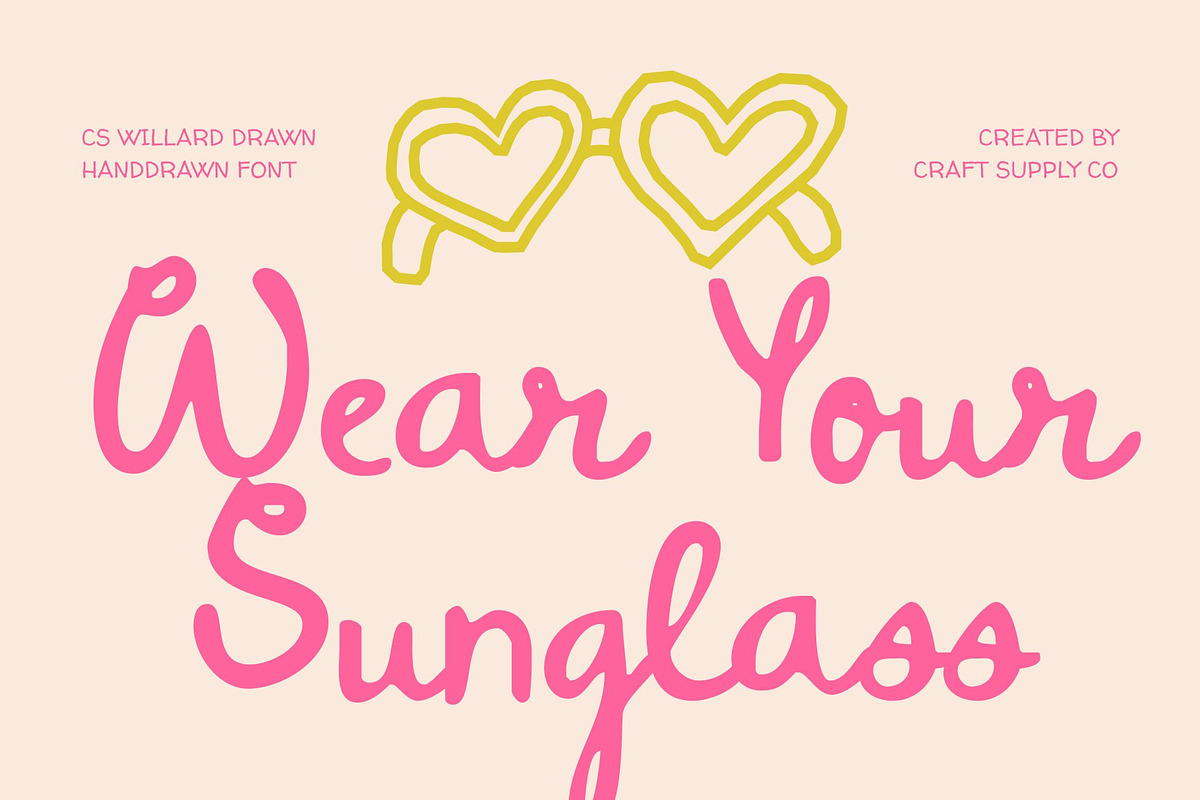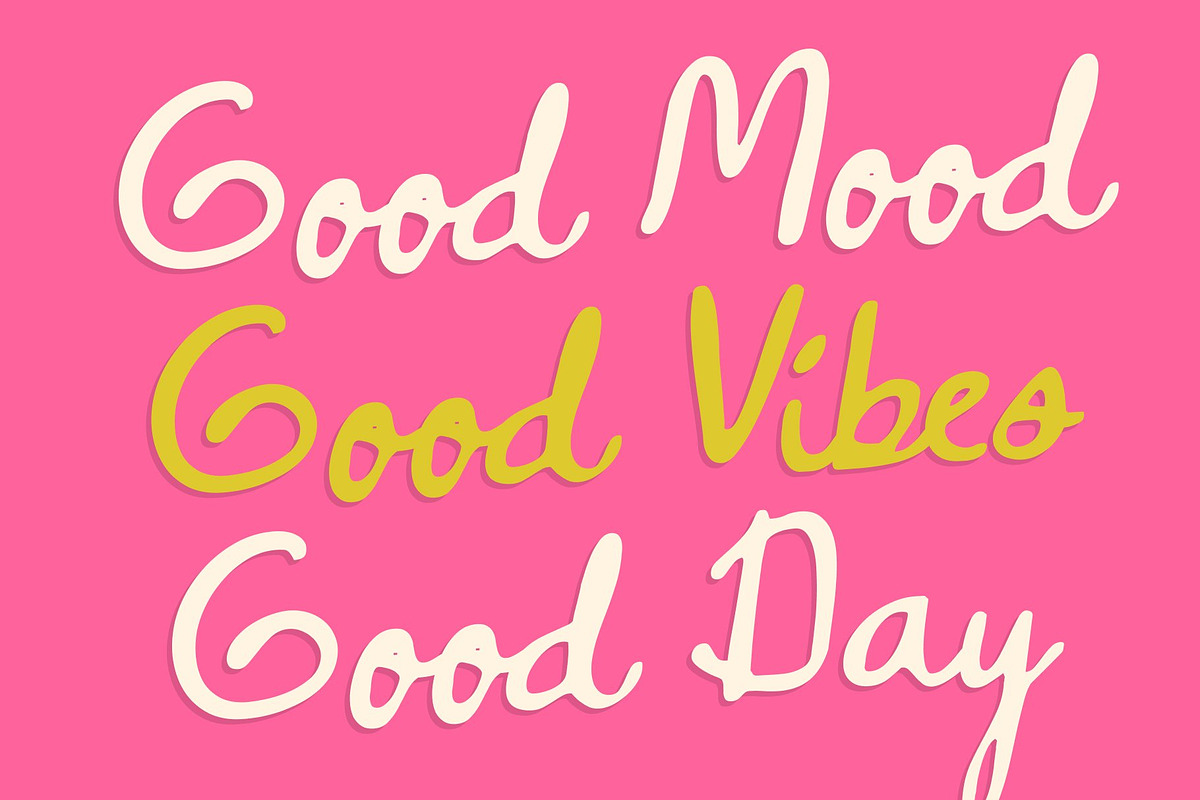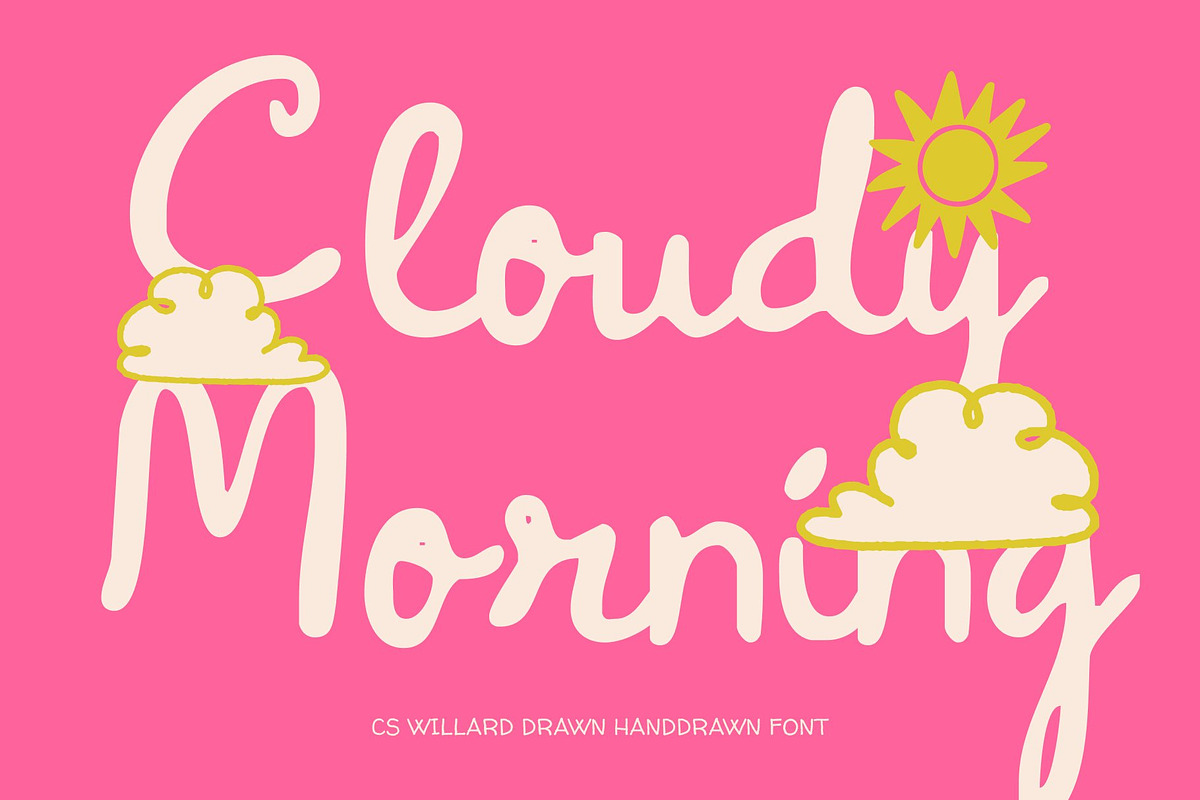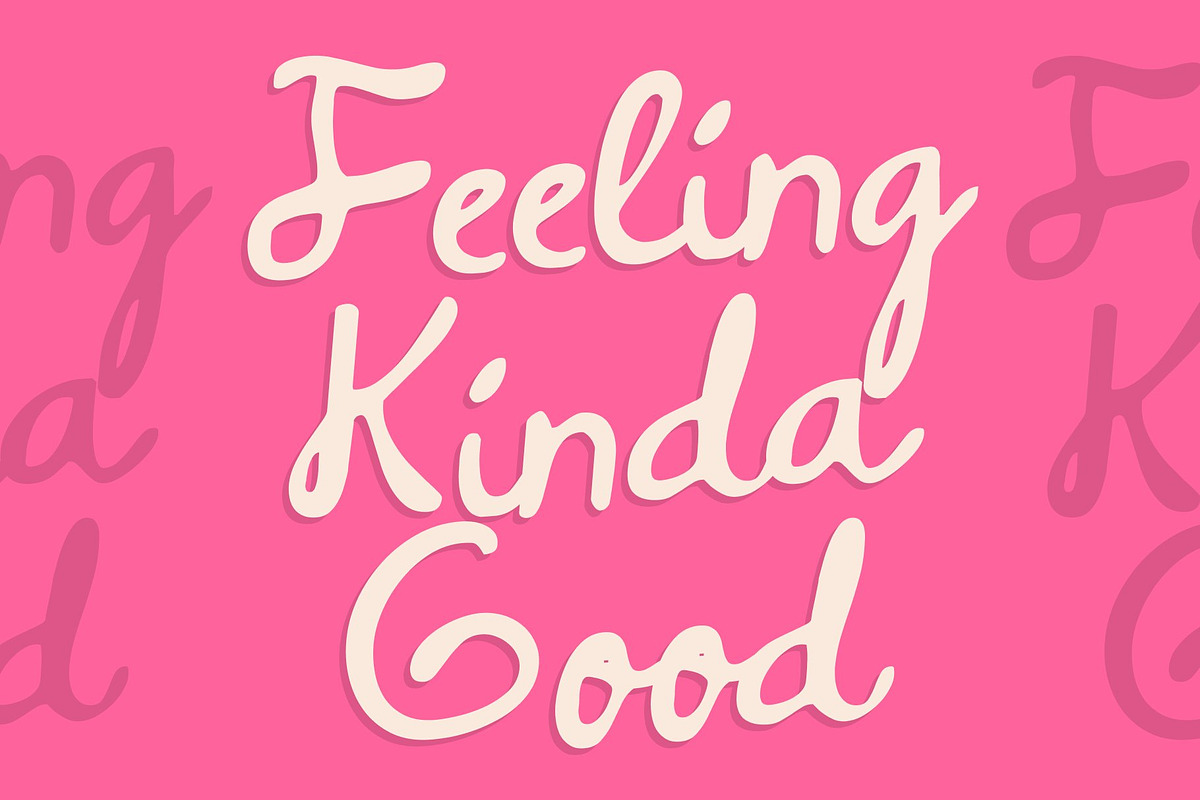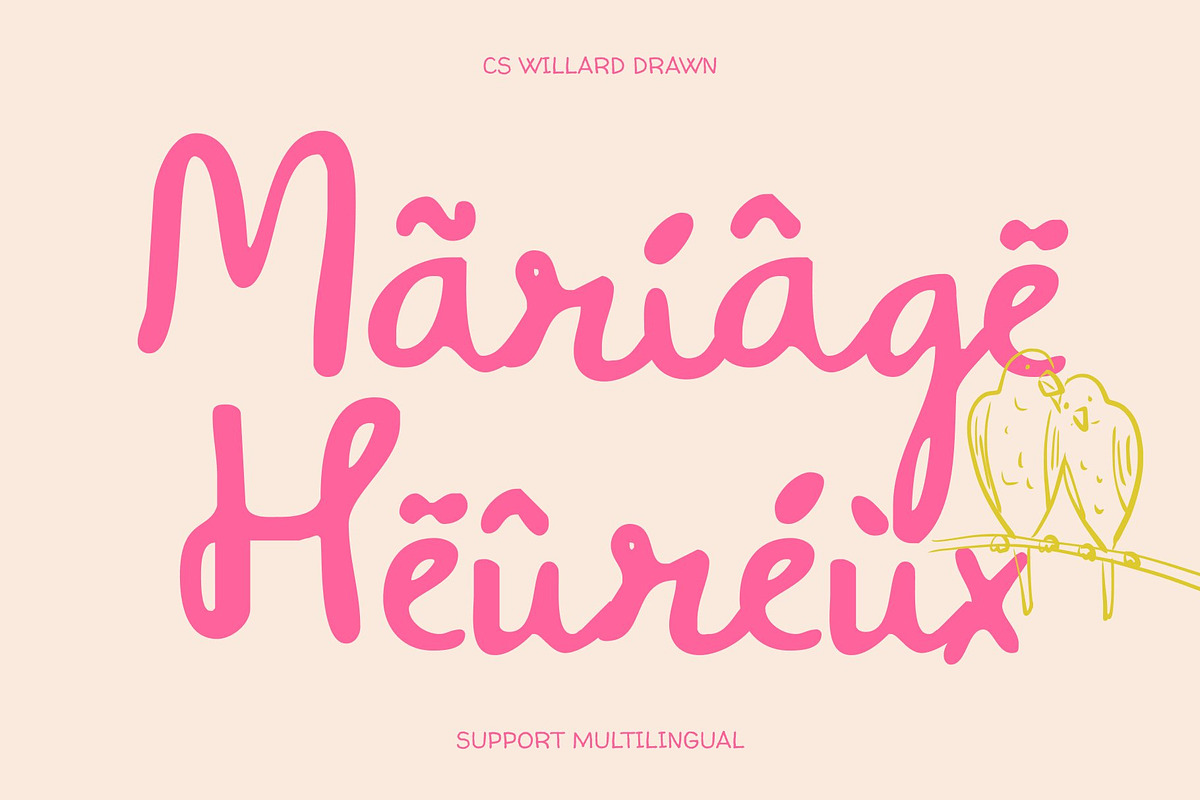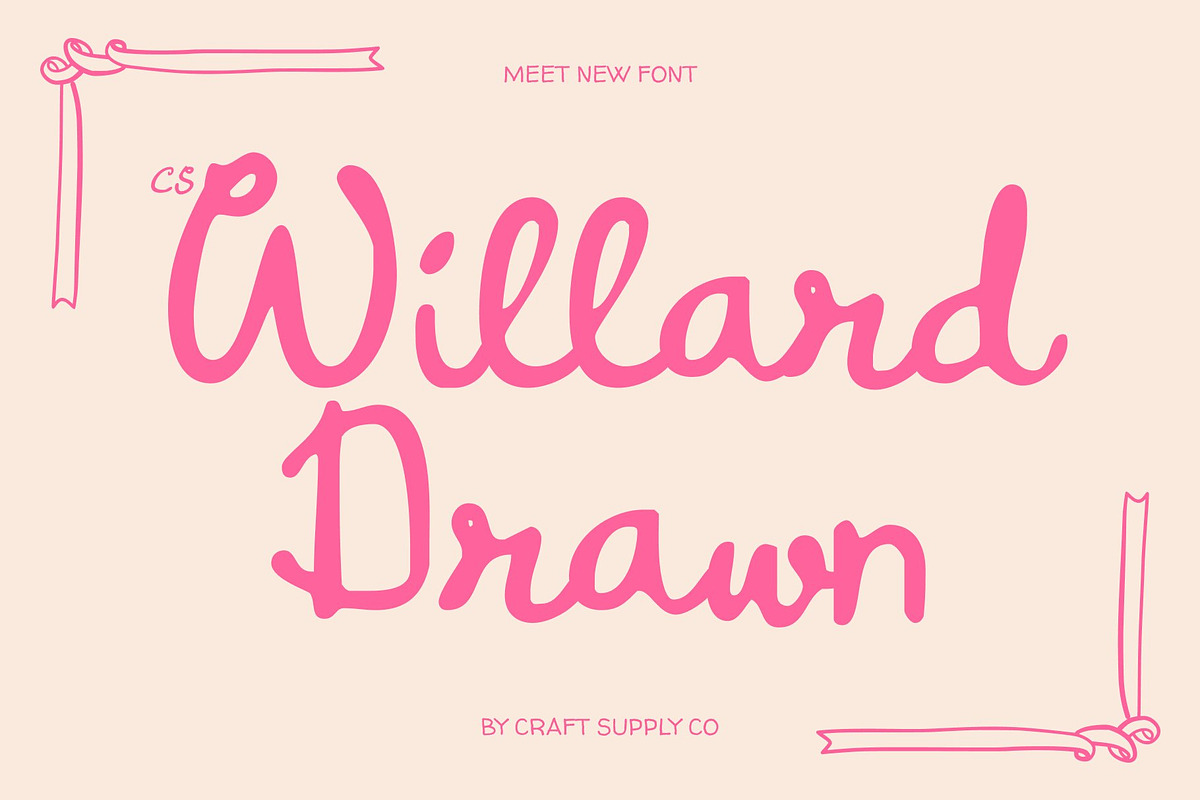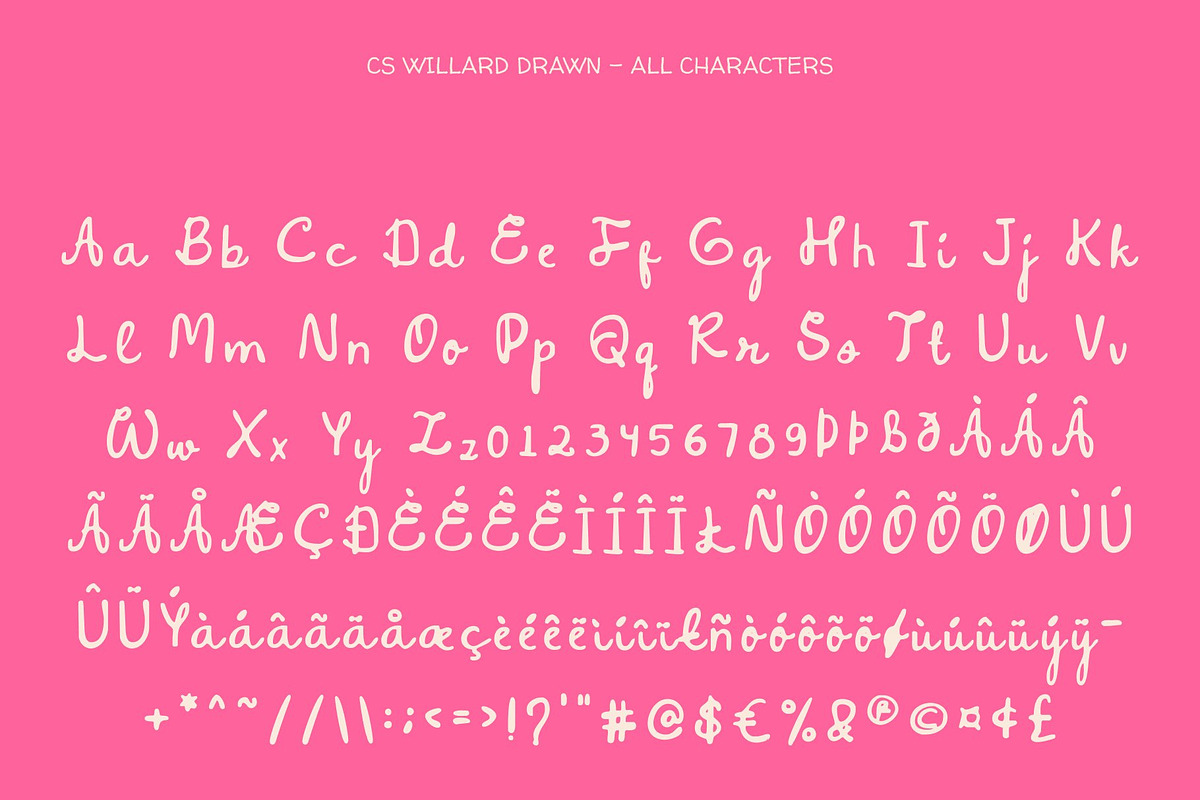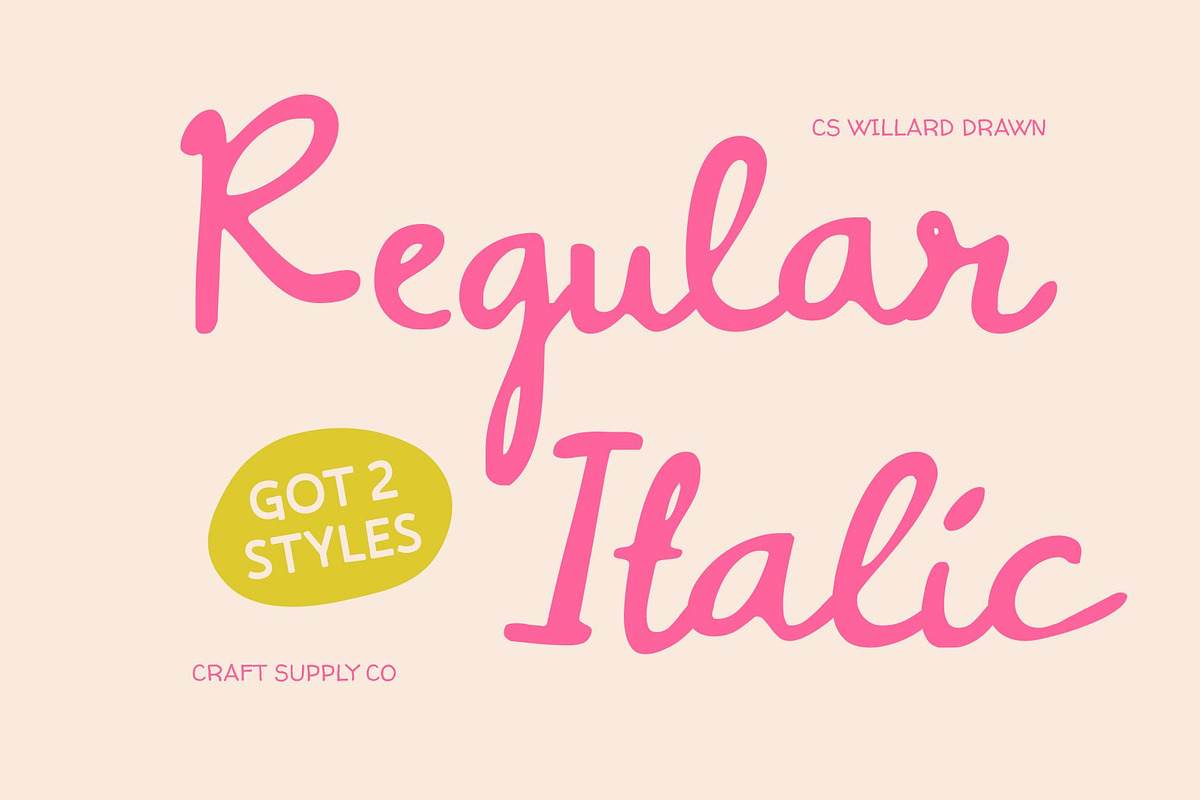
CS Willard Drawn
CS Willard Drawn – Whimsical Script Font with Hand-Drawn Artistic Elegance
Delicate Script with Charming Personality This is a whimsical script font designed to bring delicate beauty and expressive warmth to your designs. With flowing strokes and playful curves, it captures a soft, artistic personality that feels handwritten and personal. The drawn effect enhances its organic quality, making every letter feel graceful, imaginative, and full of character.
Elegant Strokes with Expressive Style Each character features smooth, sweeping lines crafted with care and intention. Subtle variations in the strokes add a handcrafted rhythm, balancing elegance with spontaneity. This refined yet whimsical structure gives the font a distinctive style that stands out while remaining gentle and sophisticated.
Perfect for Branding and Personal Expression This font shines in branding projects that value creativity, softness, and individuality. Its expressive letterforms add a memorable identity to logos, packaging, editorial layouts, and lifestyle designs, making it ideal for boutique brands and artistic concepts.
Ideal for Invitations and Fashion Graphics From wedding invitations and greeting cards to fashion look books and social media visuals, this font delivers a refined yet playful aesthetic. Its stylish flow brings romance, creativity, and timeless beauty to every composition, ensuring your designs feel personal, artistic, and beautifully crafted.